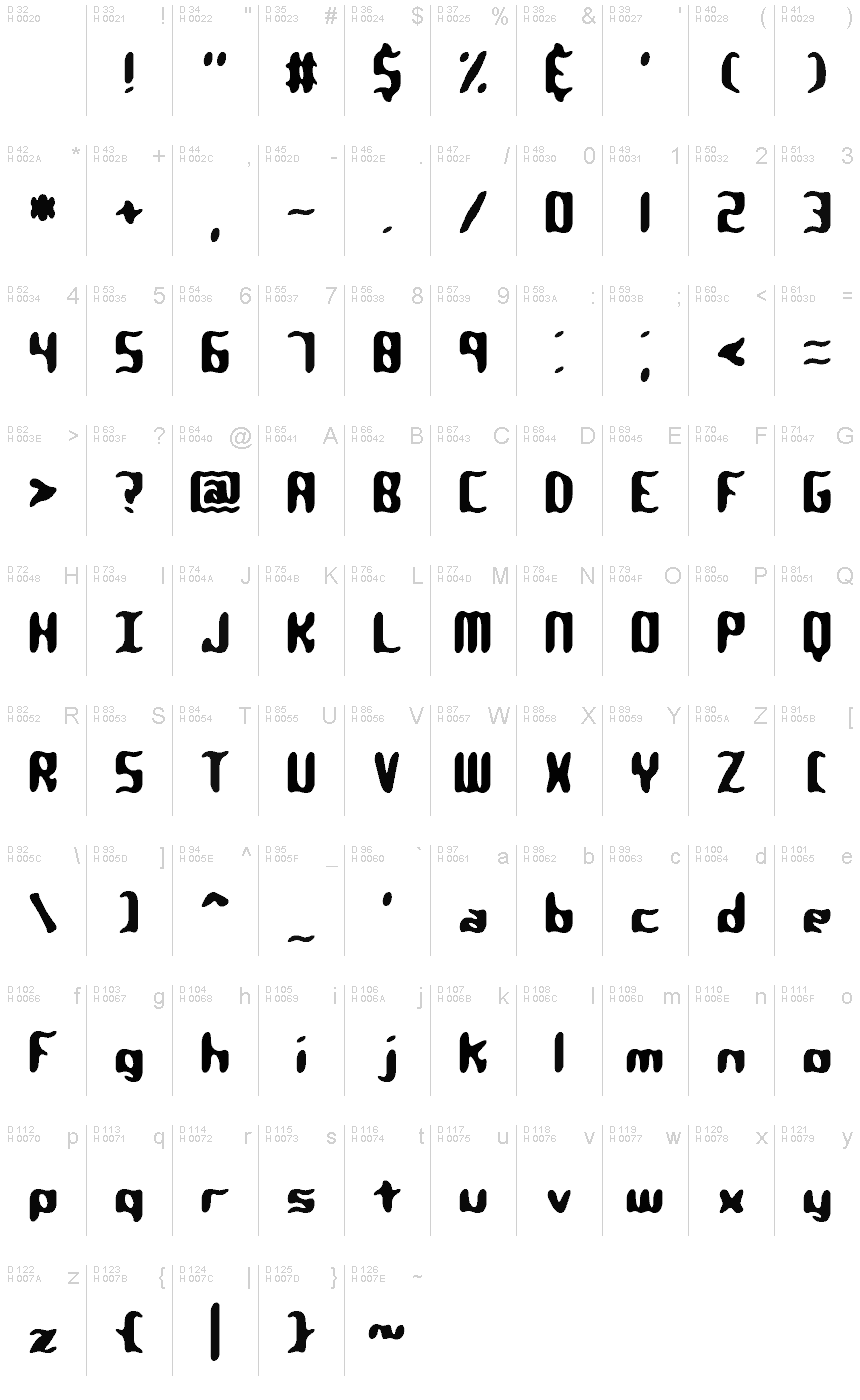
Qlumpy BRK
Qlumpy BRK, from the Qlumpy font family and crafted by ÆNIGMA FONTS, presents a playful yet bold display typeface that effortlessly captures attention. Its distinctive blob-like letters exude a quirky charm that is both aesthetically pleasing and remarkably versatile. The rounded edges and varying stroke widths give off an informal vibe, making it ideal for projects aiming to convey fun, creativity, or approachability.
The font's unique style stands out in contexts where personality is key—think children's books, casual game interfaces, or whimsical branding initiatives. Qlumpy BRK's ability to inject lightheartedness into any design makes it not only a visual treat but also a functional choice for designers seeking to add character and life to their creations. Whether you're looking to engage an audience in print or digital media, this font holds the potential to bring your message alive with its distinct style and presence.